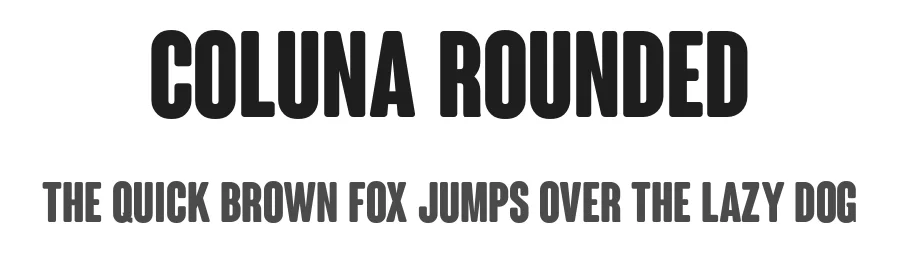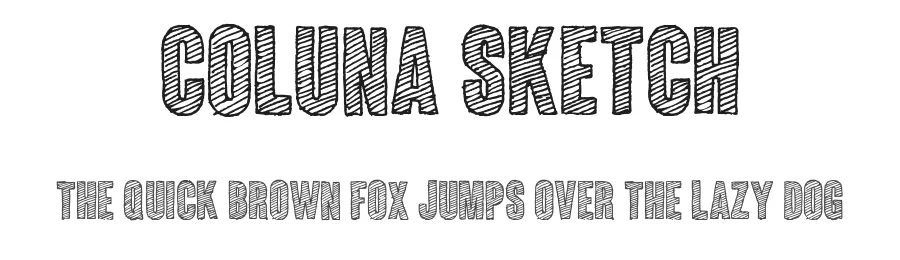
About Coluna Font
Coluna is a visually powerful, bold, condensed, sans-serif. This font is suitable for headlines, titles, statements, and for commercials. The name is a tribute to MΓ‘rio Coluna, historical footballer, central midfielder of Benfica Lisbon.
Coluna Family:
Coluna Regular
Coluna Rounded
Coluna Outlines
Coluna Sketch